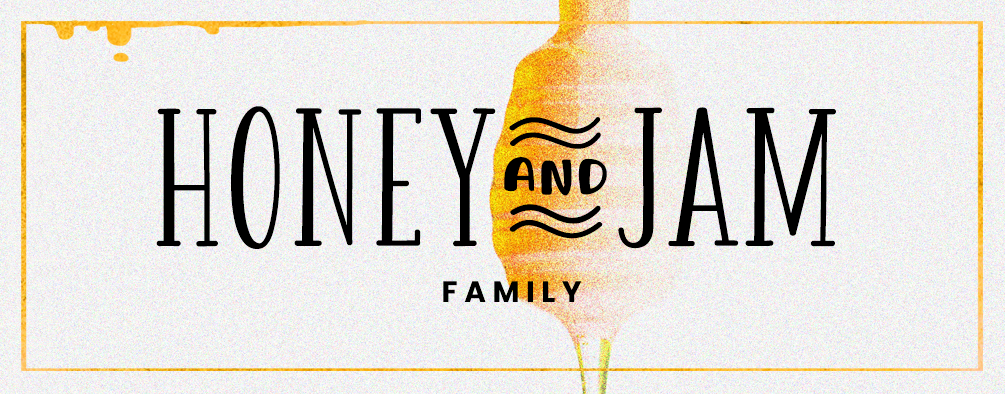
Honey and Jam - Family
You’re buying the full version of “Honey and Jam - Family”, our latest classy and elegant handwritten styled font family. This means you will be getting the Regular, light and bold styles. The full versions of all styles feature 208 glyphs and include numbers, special glyphs and language support for most latin languages.